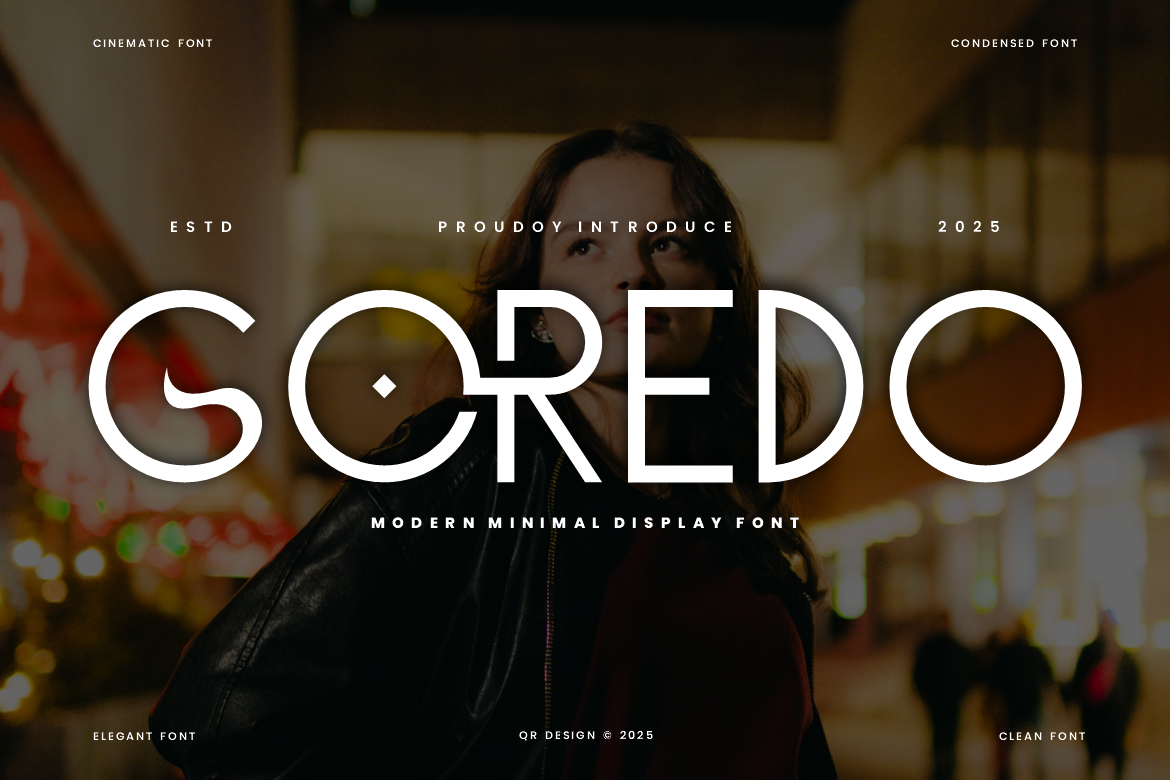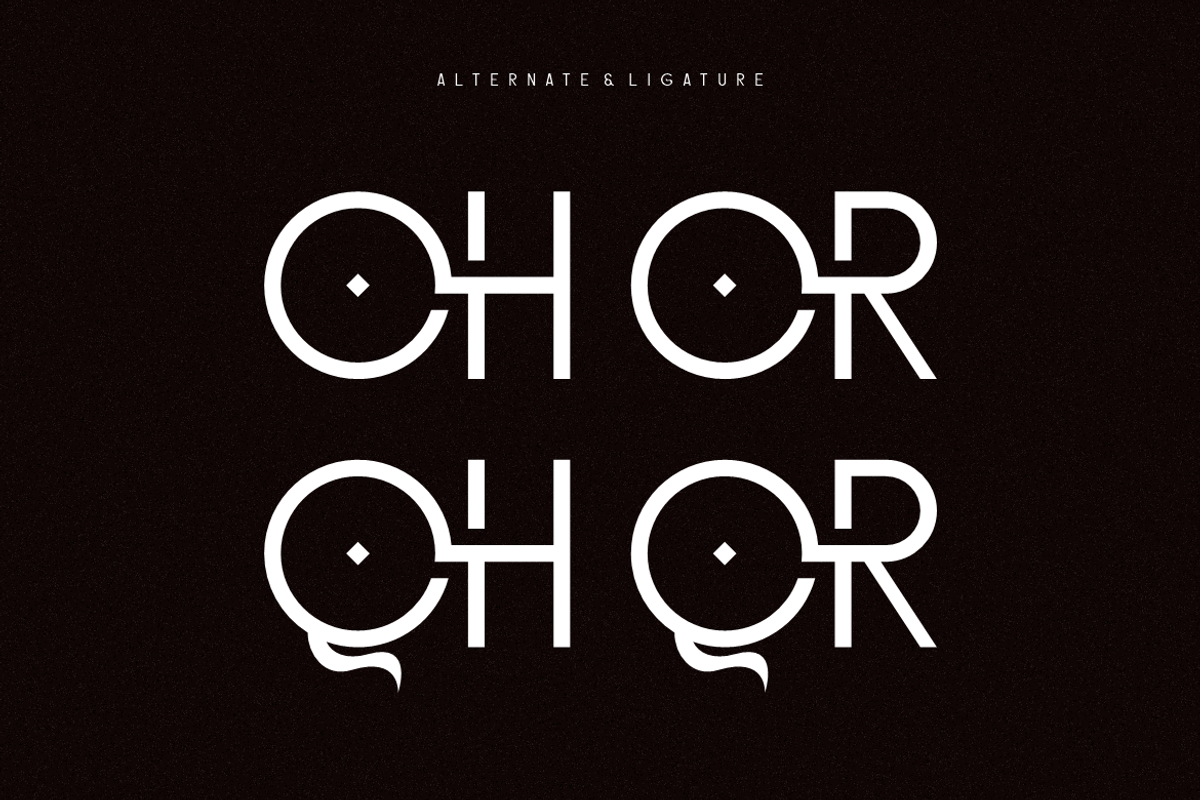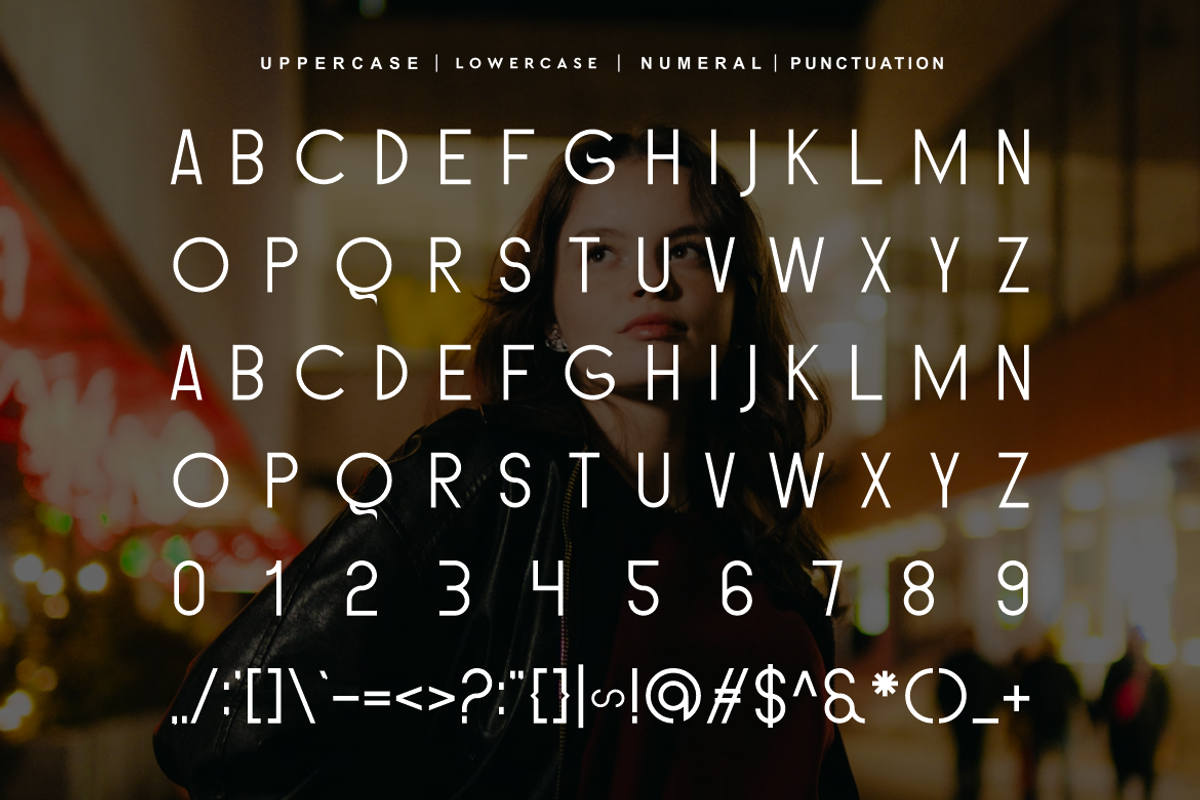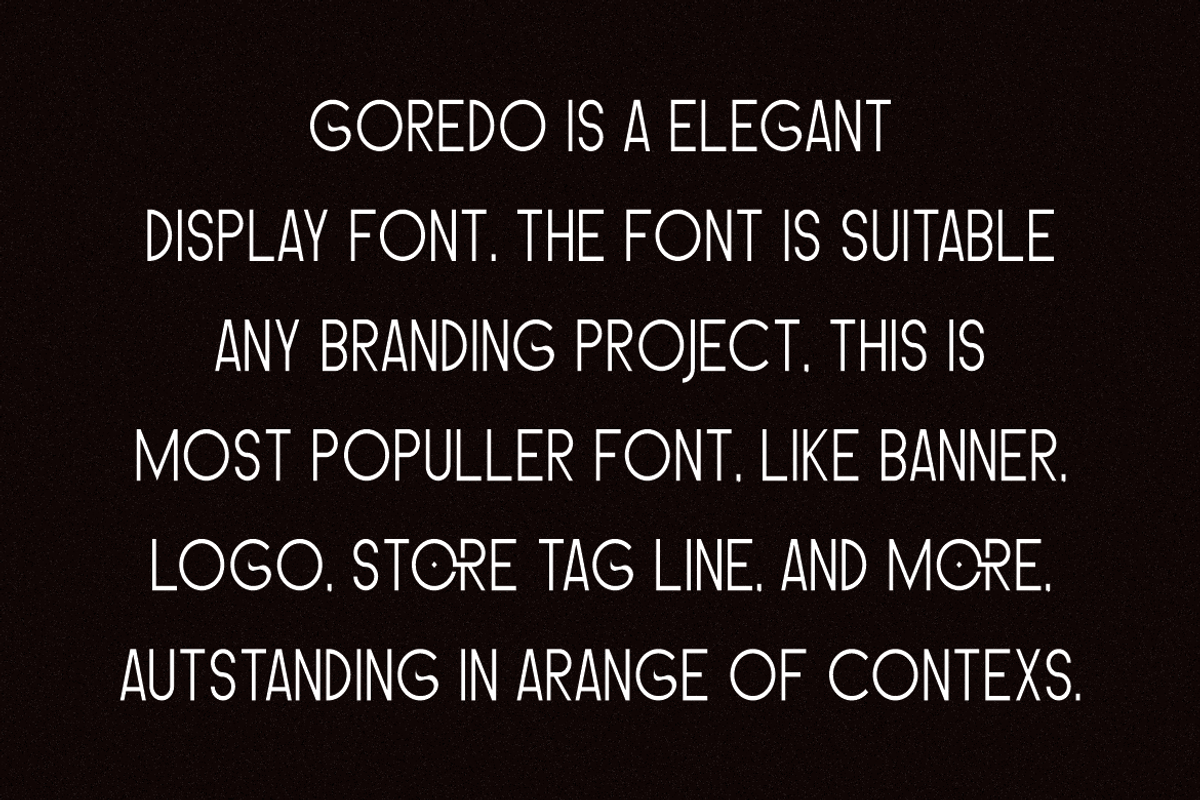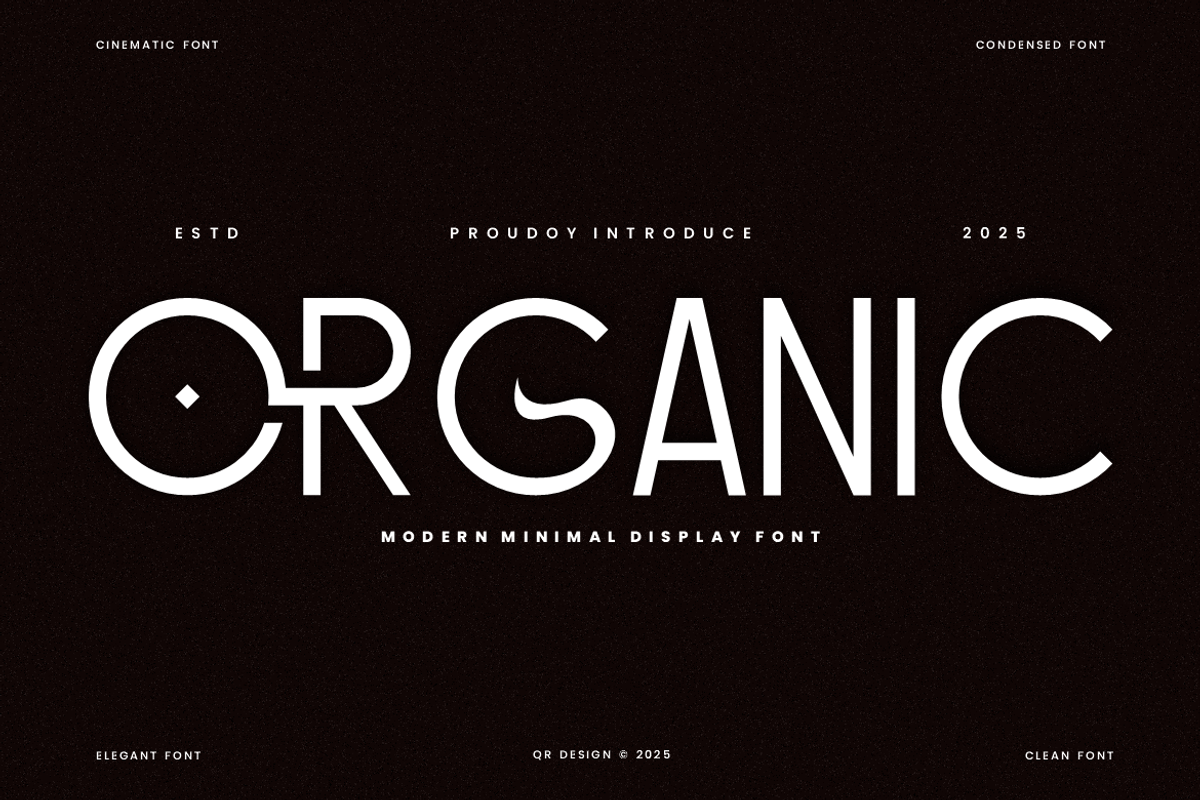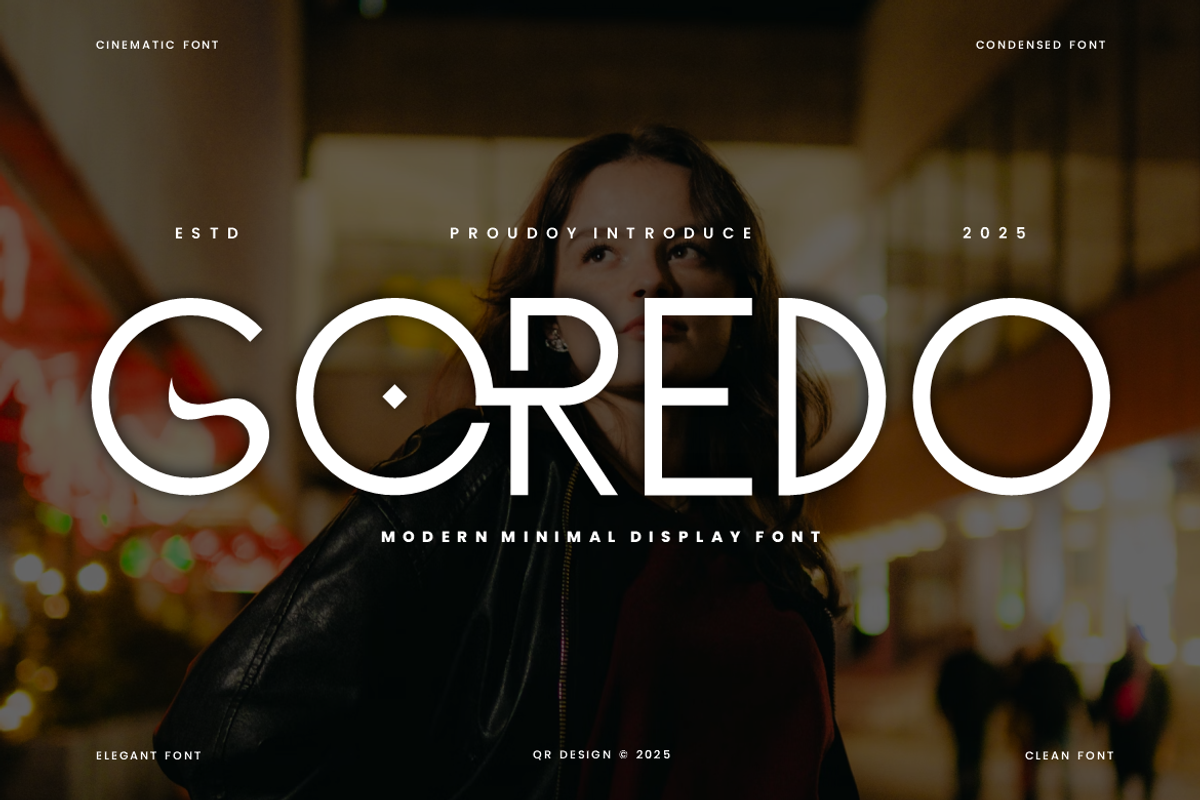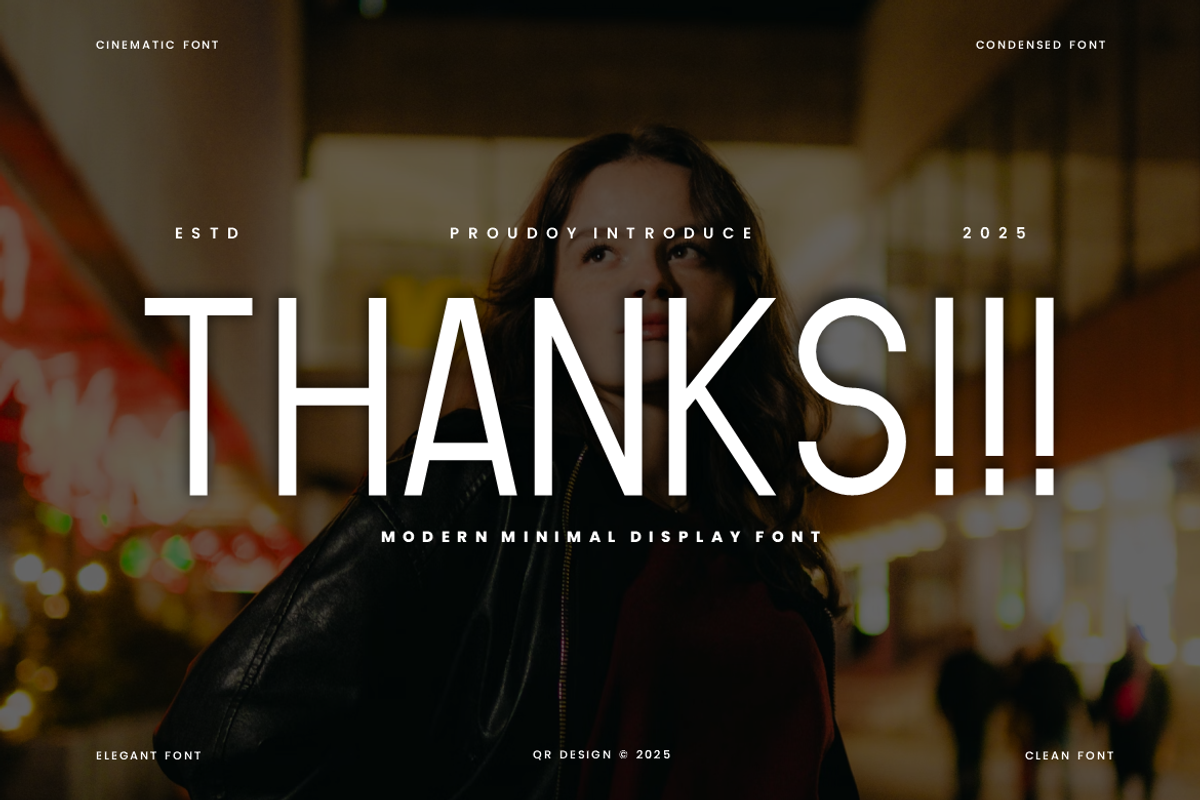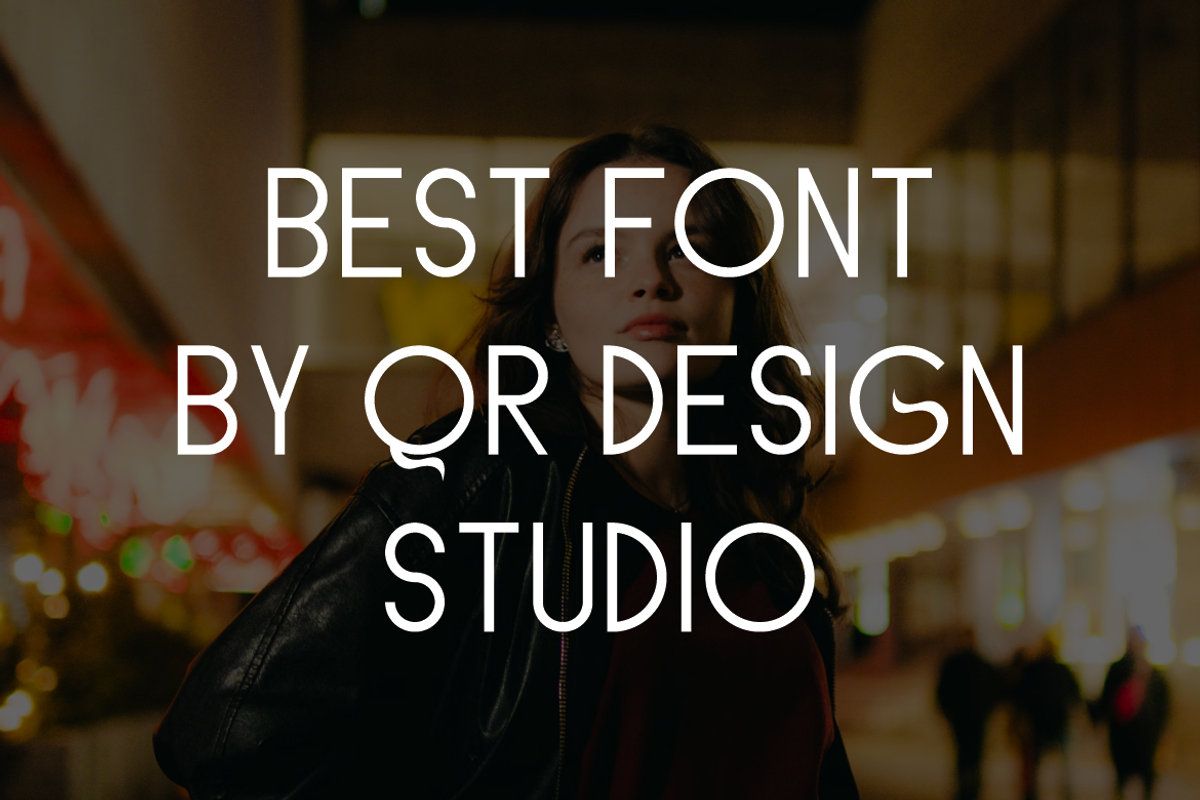
Goredo - Minimal & Clean Font
Goredo - Modern Font is a bold and authentic display font. The font is suitable for any branding project like poster, logo, sport, and many more. Outstanding in a wide range of contexts.